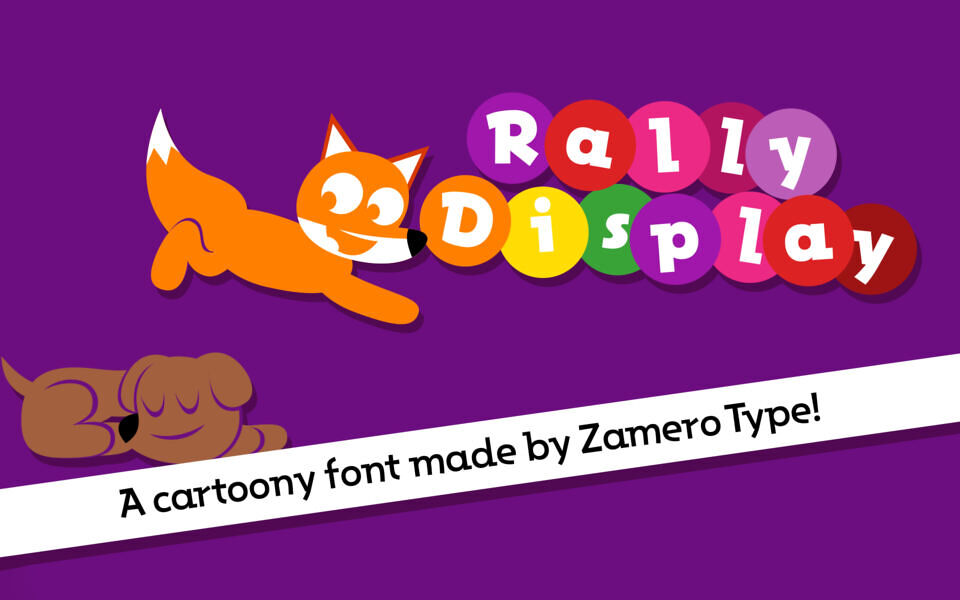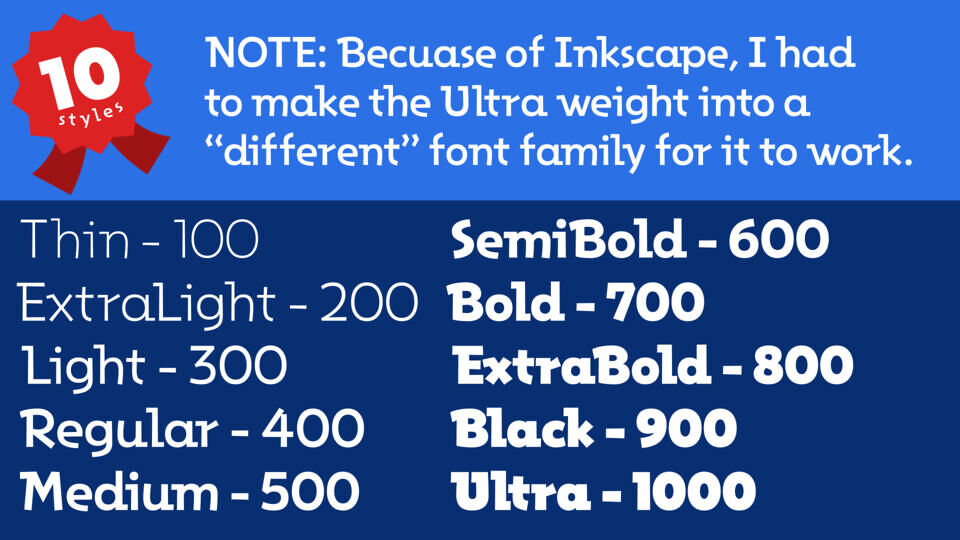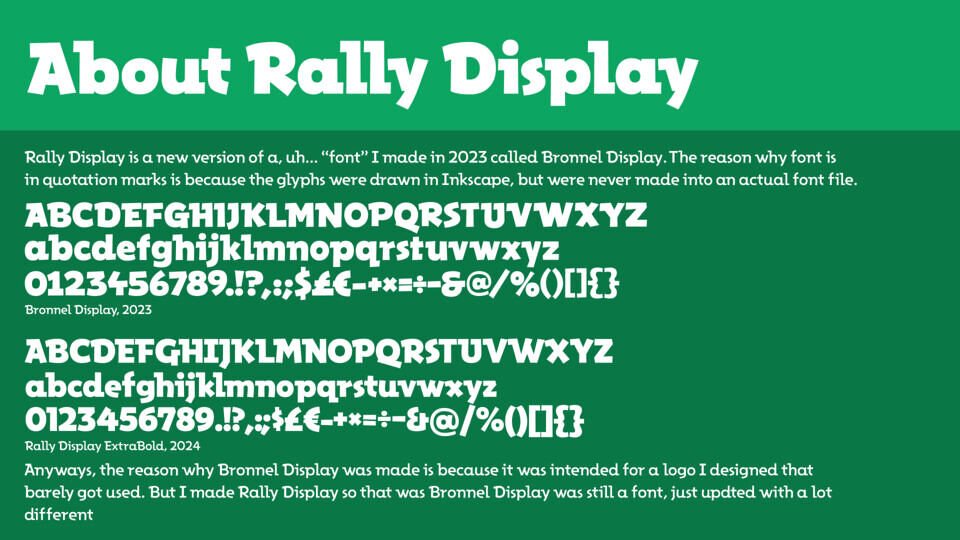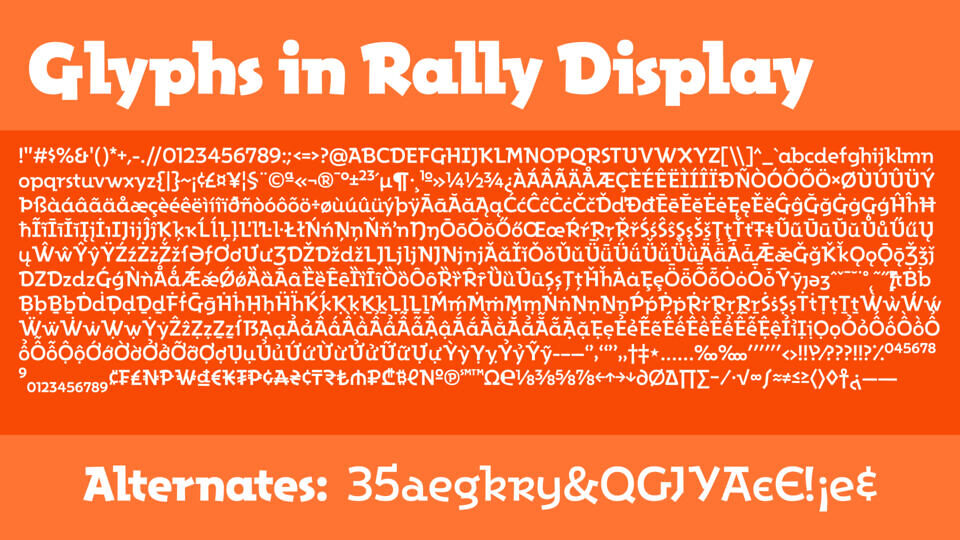
Rally Display is a fun, yet legible font. It features distinctive serifs on the top left or bottom right of characters. With an impressive 806 glyphs, it supports 298 languages, making it a versatile choice for various projects.